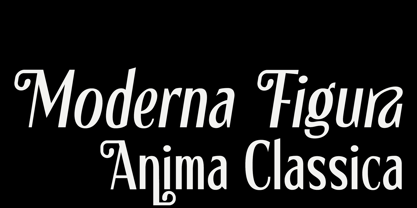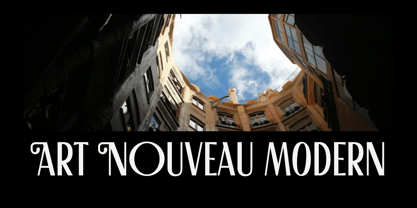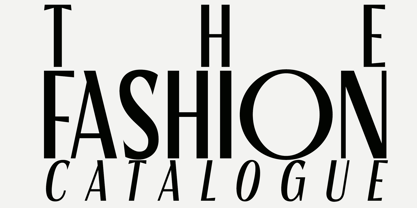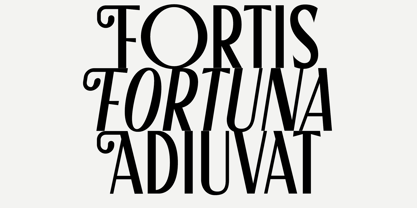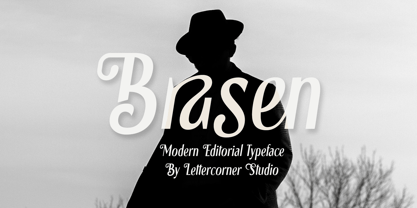
Brasen
Modern Editorial Display Typeface
Brasen is a modern display typeface inspired by the elegance of European editorial design, vintage cinema, and refined artistic expression.
Crafted with tall proportions, flowing curves, and expressive alternates, Brasen blends contemporary sophistication with timeless classical charm.
Designed to stand out in large compositions, Brasen features graceful ligatures and distinctive stylistic alternates that create a luxurious and cinematic visual rhythm.
Its dramatic yet balanced character makes it perfect for fashion branding, magazine headlines, album covers, posters, packaging, and artistic visual identities.
Brasen speaks softly, yet leaves a lasting impression.
• Uppercase & Lowercase
• Stylistic Alternates
• Elegant Ligatures